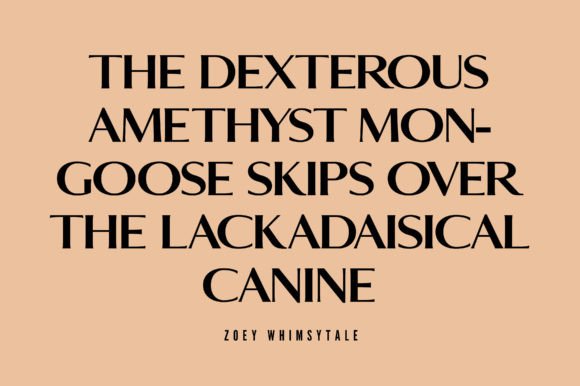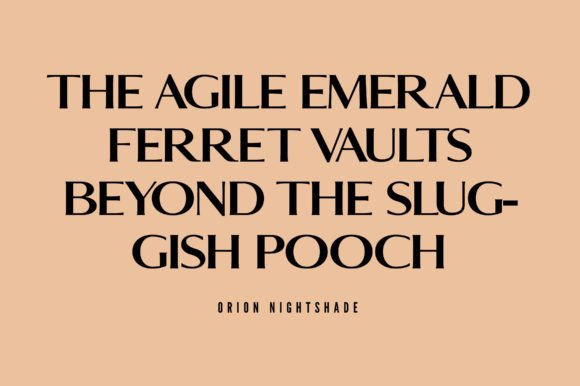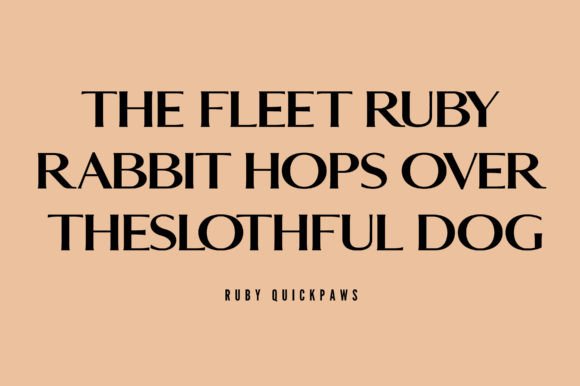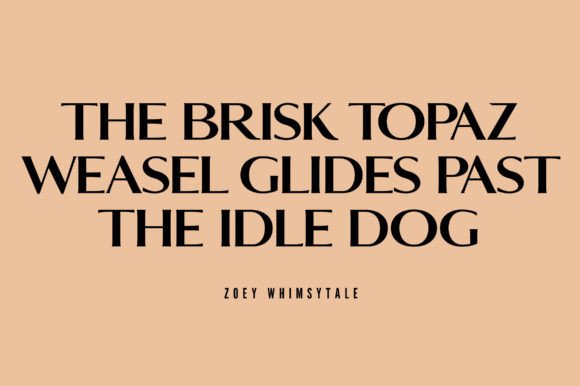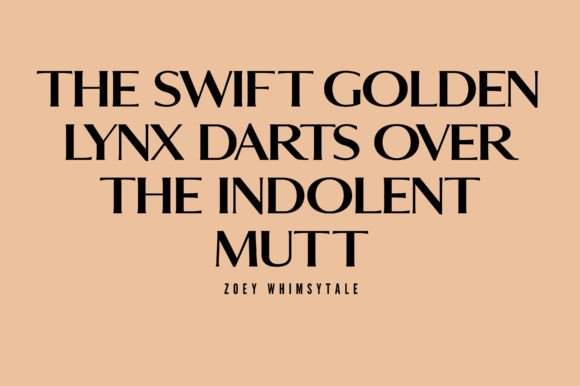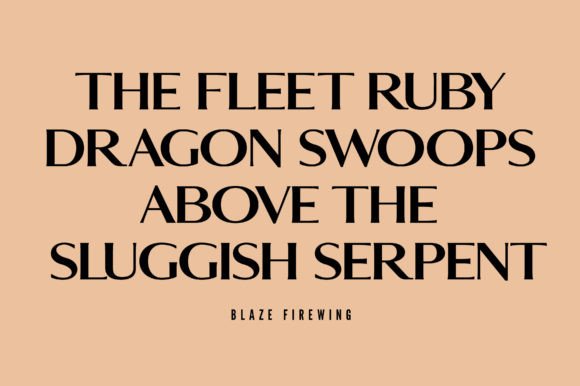
Introduction to Merci Font Font
Fonts play a crucial role in design, and the Merci Font font is a typeface that brings both character and versatility to any project. Whether you’re working on a branding project, a website, or a print design, the Merci Font font offers a unique style that can elevate your work.
Introducing βMerciβ β where elegance meets simplicity in the world of typography.
Elevate your designs with this exquisite minimalist sans serif typeface that embodies the essence of modern chic With its delicate lines and clean, uncluttered forms, βMerciβ adds a touch of sophistication to your projects, whether itβs branding, packaging, invitations, or digital content.
Key Features of Merci Font Font
Why Choose Merci Font Font?
The Merci Font font is more than just a typeface β it’s a design tool that helps you communicate your message with style and clarity. Its unique character set and versatile design make it suitable for a wide range of applications, from elegant invitations to bold headlines.
With its carefully crafted letterforms and balanced proportions, the Merci Font font ensures readability and visual appeal across all mediums.
What makes Merci Font font special?
The Merci Font font stands out with its unique design, exceptional readability, and versatility across various design applications.